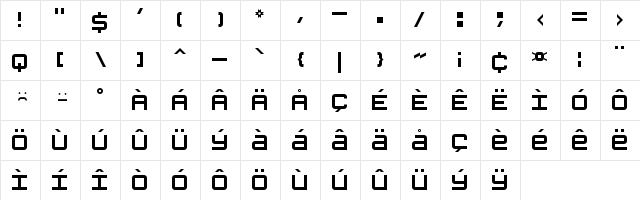
Grishenko Novoye NBP Regular
Design Context for Grishenko Novoye NBP Typeface
Grishenko Novoye NBP takes a measured approach to typography — its balanced proportions and neutral character make it a reliable workhorse for both digital and print work.